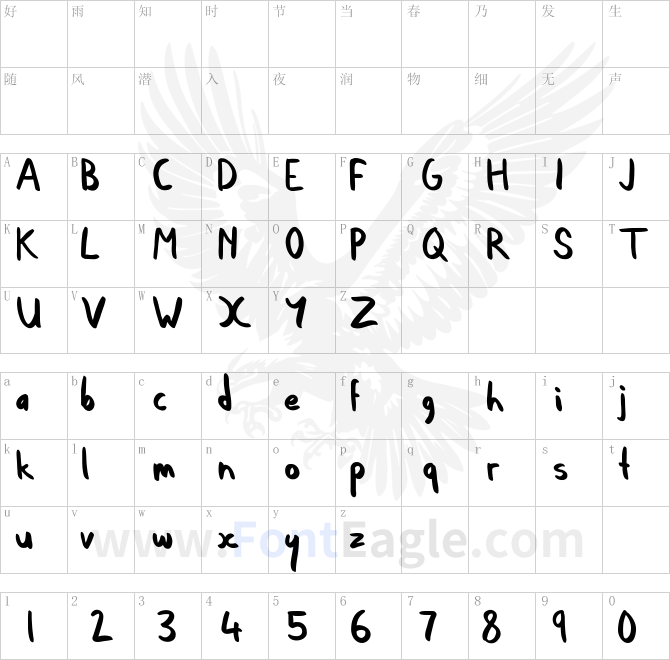
Dylan-Regular is a great font, widely used in graphic design, single-page menu design, poster design and other fields, and is deeply loved by designers.Dylan-Regular download.